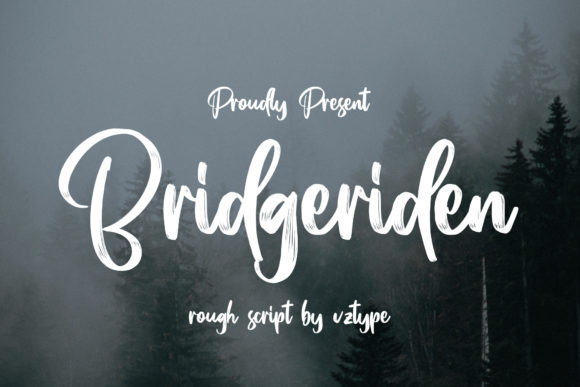
Discover Bridgeriden: A Stylish Script Font for Crafters
Bridgeriden is a premium script font that combines attractive curves with a fresh urban edge, making it perfect for adding an eye-catching appeal to your craft and design projects. Whether you're a crafter, Etsy seller, or small shop owner, this font can elevate your work with its stylish and modern typography.
The Visual Personality of Bridgeriden
Bridgeriden has a unique charm that sets it apart from other script fonts. Its flowing lines and elegant curves give it a sophisticated yet approachable feel. The font's fresh urban edge makes it versatile enough to be used in a variety of designs, from handmade labels and stickers to wedding stationery and product packaging.
Practical Uses for Bridgeriden in Your Craft Projects
Bridgeriden is ideal for a wide range of creative projects. Here are some practical ways you can use this font:
- Handmade Labels and Stickers: Use Bridgeriden to create beautiful and readable labels for your handmade products, such as candles, soaps, and jams.
- Greeting Cards and Invitations: Add a touch of elegance to your greeting cards and invitations with Bridgeriden. It's perfect for birthday parties, weddings, and other special occasions.
- Wall Art and Printable Designs: Create stunning wall art and printable designs that stand out with the unique style of Bridgeriden. It works well for inspirational quotes and decorative elements.
- Product Packaging and Tags: Elevate your product packaging and tags with Bridgeriden. It adds a professional and polished look to your branding.
- Seasonal Craft Designs: Incorporate Bridgeriden into your seasonal craft designs, such as holiday gift tags, Christmas cards, and Valentine’s Day decorations.
Enhancing Product Presentation and Brand Consistency
Using Bridgeriden in your projects can significantly enhance the presentation and perceived quality of your products. The font's stylish and modern appearance helps to create a consistent and recognizable brand identity. Customers will appreciate the attention to detail and the professional look of your designs, which can lead to increased customer recognition and loyalty.
Readability and Practical Advice
While Bridgeriden is visually appealing, it's important to consider readability, especially for smaller text and cutting machine projects. For small stickers and product labels, use Bridgeriden for short phrases, names, and titles. For longer text, consider pairing it with a clean sans serif font to ensure clarity and legibility.
Font Pairing Ideas
To create a balanced and harmonious design, try pairing Bridgeriden with complementary fonts. Here are some ideas:
- Clean Sans Serif Fonts: Pair Bridgeriden with a simple and clean sans serif font like Arial or Helvetica for a modern and professional look.
- Bold Display Fonts: Combine Bridgeriden with a bold display font to add a strong visual impact to your designs, such as for signage or large-scale prints.
- Serif Fonts: For a more classic and elegant feel, pair Bridgeriden with a serif font like Times New Roman or Garamond.
Checking Included Styles and Features
Incorporating Bridgeriden into your craft and design projects can bring a new level of creativity and professionalism. Its stylish and modern appeal makes it a valuable asset for any crafter, Etsy seller, or small shop owner. Experiment with different uses and pairings to find the perfect fit for your unique brand and products.